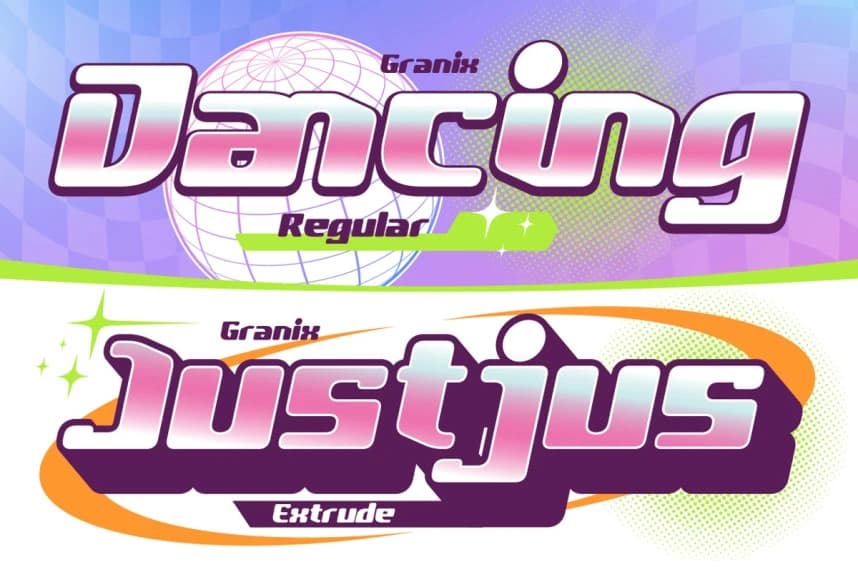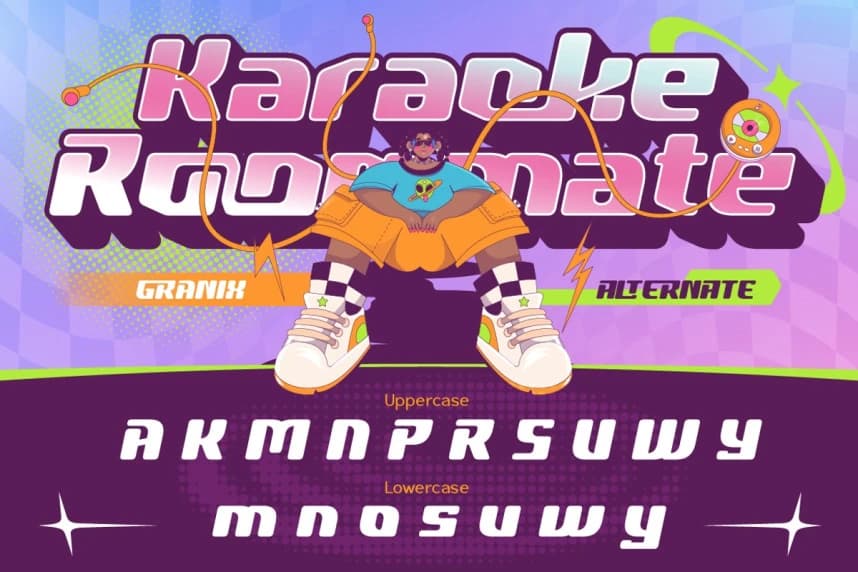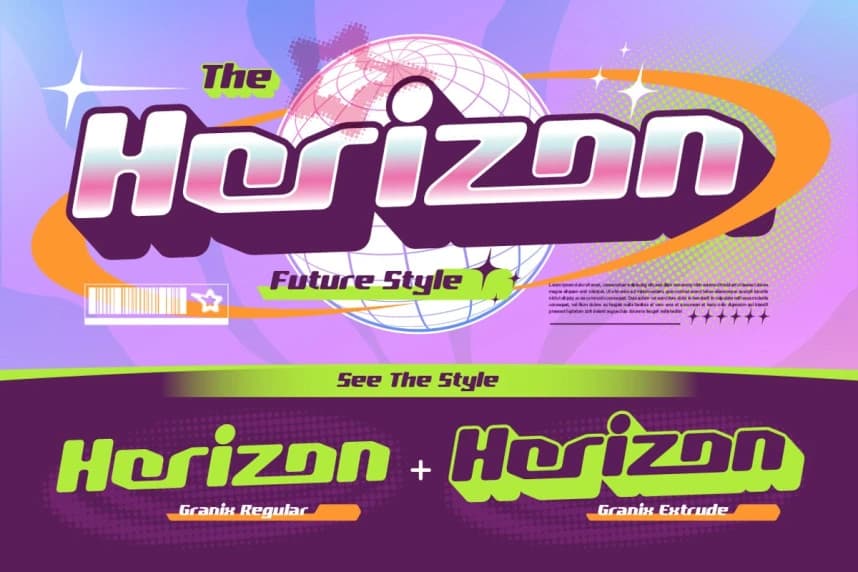
Granix Font
Granix Font, a playful and eye-catching display font inspired by retro-future aesthetics, street culture, and early 2000s digital vibes. Designed to stand out, Granix blends chunky letterforms, smooth curves, and vibrant personality into one powerful typeface.